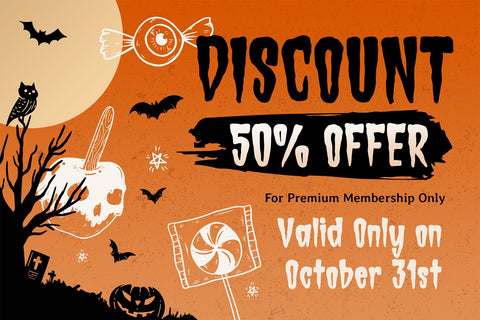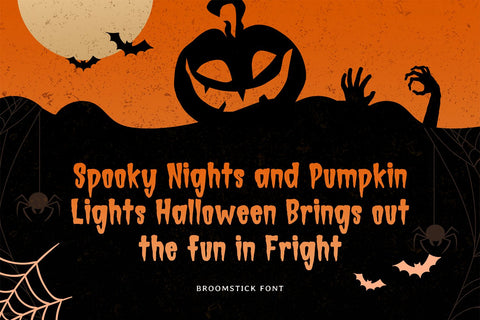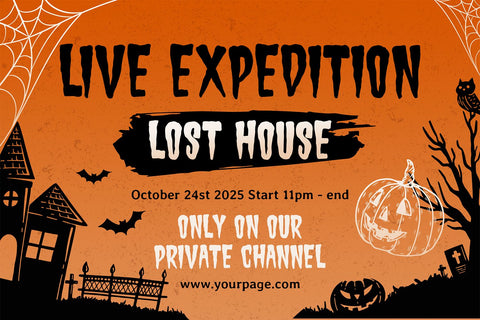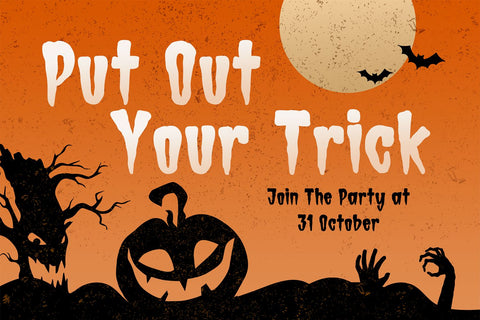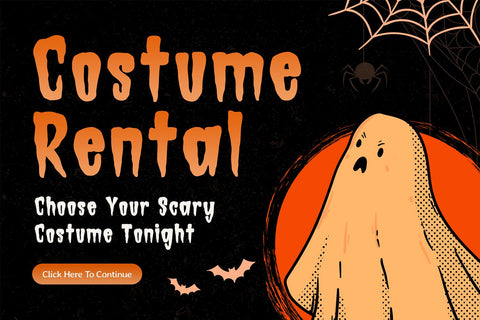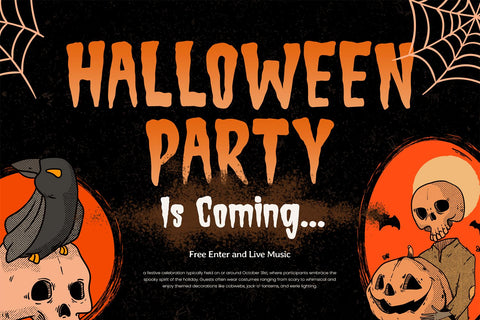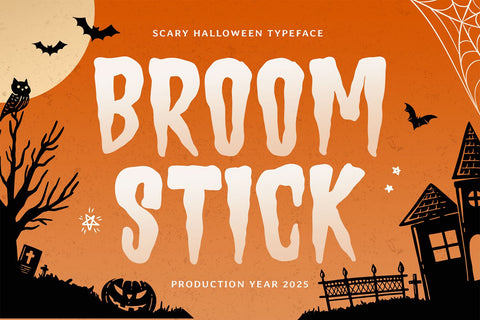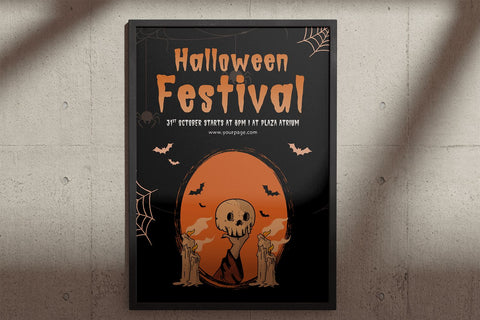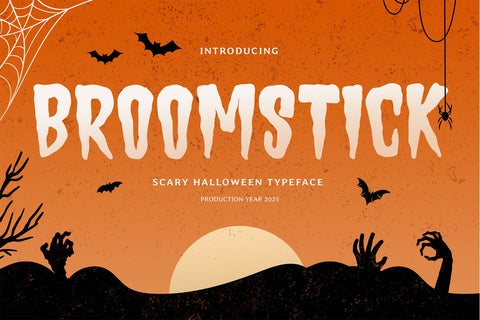
BROOMSTICK - Halloween Font
The "Broomstick" font is a whimsical yet spooky display typeface designed to capture the enchanting and eerie spirit of Halloween. Its playful, uneven strokes and curling details are inspired by witches’ brooms, evoking the charm of a magical October night. Whether you’re crafting invitations for a haunted party or decorating a spooky storefront, this font is the perfect touch for your Halloween-themed projects.
With its decorative elements and spooky flair, "Broomstick" perfectly balances a fun, mystical vibe with the chills of the season. The delicate curves and whimsical flourishes add a touch of magic, while still evoking the mystery and thrills of Halloween. This font is ideal for anything from treat bags and Halloween event flyers to creepy yet charming decorations.